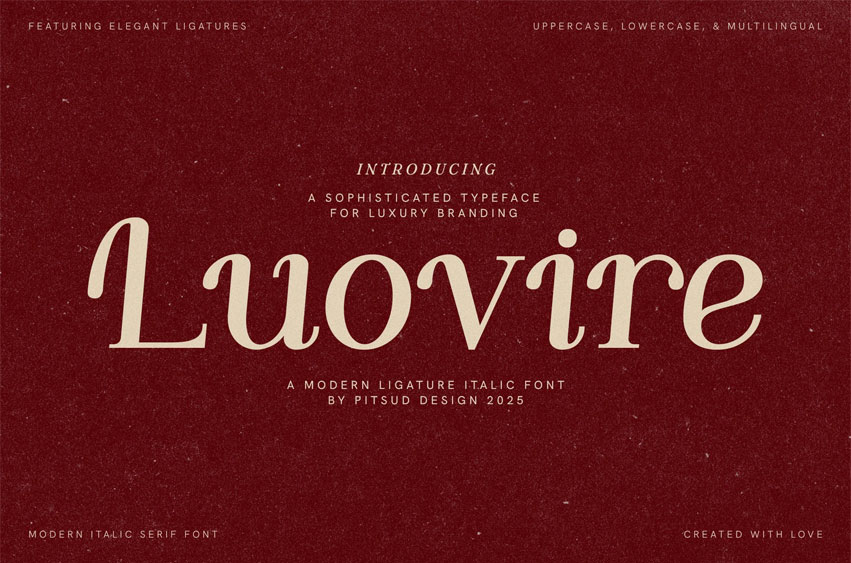
Luovire Font
Luovire Font Modern Classic Fonts is a sophisticated serif typeface crafted to embody timeless elegance and contemporary refinement. With its graceful italic forms, delicate ligatures, and smooth curves, Luovire delivers a luxurious and polished aesthetic perfect for high-end branding, editorial design, and fashion-forward projects.
Perfect For Whether you’re designing a luxury brand identity, magazine layout, wedding stationery, or upscale packaging, Luovire offers the ideal balance of readability and refined style. Its modern italic flow and classic serif roots make it versatile for digital and print applications.
• Elegant Serif Style: A fusion of modern refinement and timeless tradition.
• Italic & Ligatures: Adds sophistication and smooth flow to your text.
• Complete Character Set: Uppercase, lowercase, numbers, punctuation, symbols.
• OpenType Features: Alternates, ligatures, stylistic sets.
• Multilingual Support: Covers English, French, Spanish, German, Italian, and more.
Luovire combines classic sophistication with modern charm, making it an essential typeface for projects that demand elegance and professionalism. From high-fashion branding to luxury product design, Luovire elevates your work with a graceful presence.
• Luxury Branding: Elevate your logo and identity design.
• Editorial Design: Perfect for magazine spreads and book covers.
• Wedding Stationery: Elegant typography for invitations and menus.
• Fashion Industry: Build a stylish and upscale visual presence.
• Premium Packaging: Create a refined and timeless look for products.